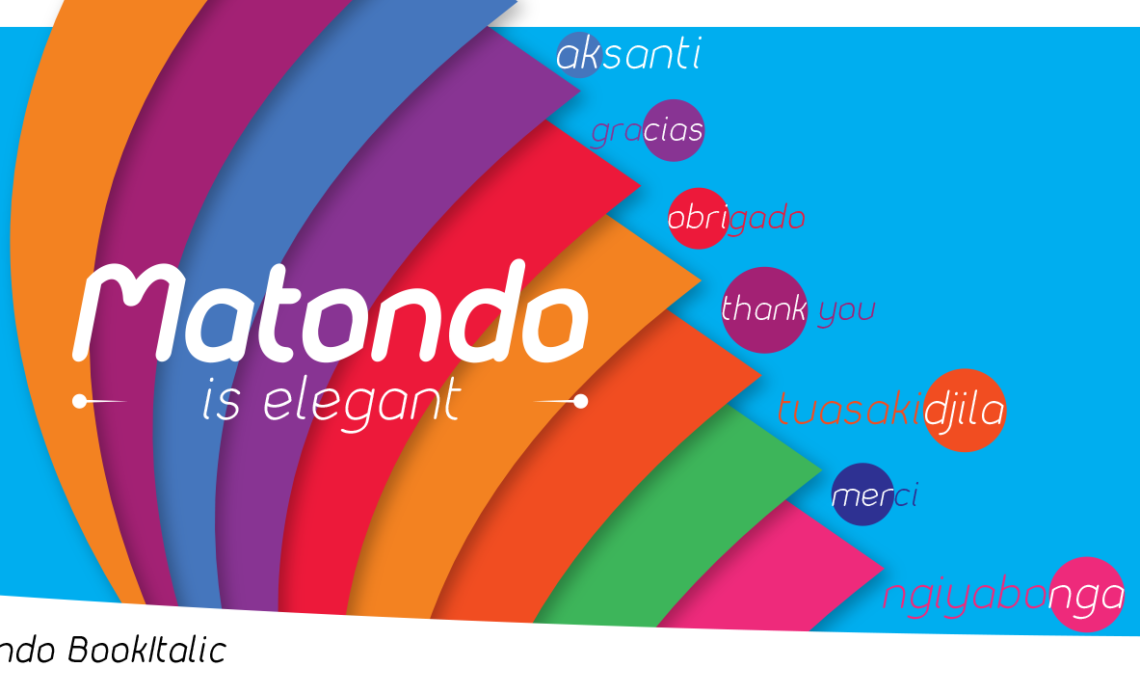
Matondo Book Italic Font
Step into the realm of typography and discover the captivating allure of Matondo Book Italic Font. This extraordinary sans serif font family, meticulously crafted by audrykitoko, is a symphony of elegance and distinction. With its unique shapes and striking presence, Matondo transcends the boundaries of ordinary fonts, transforming your designs into masterpieces that leave an unforgettable impression.
Unleash your creativity and let Matondo Book Italic Font ignite your imagination. Its versatility knows no bounds, effortlessly adapting to a multitude of design projects. Craft captivating logos that command attention, weave enchanting invitations that exude sophistication, or design social media posts that radiate personality. Matondo Book Italic Font is your steadfast companion, elevating your designs to new heights of visual splendor.
Immerse yourself in the meticulously crafted details of Matondo Book Italic Font. Every curve, every stroke, every nuance has been carefully designed to evoke a sense of wonder and intrigue. Experience the joy of creating designs that captivate audiences, leaving them spellbound by your artistic prowess. Matondo Book Italic Font is not merely a font; it's an artistic expression that transforms the mundane into the magnificent.
Don't settle for ordinary fonts that blend into the background. Embrace the individuality and charisma of Matondo Book Italic Font. Let your designs radiate confidence, exude creativity, and leave a lasting legacy. Join the ranks of discerning designers who recognize the transformative power of Matondo Book Italic Font. Elevate your designs beyond the realm of the ordinary and into the extraordinary. Embrace Matondo Book Italic Font today and unlock a world of endless creative possibilities.